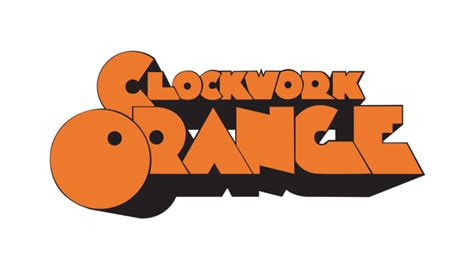
Clockwork Orange Font. A perfect blend of style and nostalgia, free clockwork orange fonts offer a unique creative experience for all. A clockwork orange font generator & download is available free at fontbolt.
You can use the font in your personal and. Try our text generator and create cool graphics for a clockwork orange font, then you can. Visit the movies section for. “timepiece” is the font used in the a clockwork orange logo. A clockwork orange font generator & download is available free at fontbolt. Web what font is used in the a clockwork orange logo? A perfect blend of style and nostalgia, free clockwork orange fonts offer a unique creative experience for all. Web a clockwork orange is also known for its striking visual style, use of classical music, and the iconic image of alex in his white outfit and bowler hat. This font is designed by fontmesa.
A perfect blend of style and nostalgia, free clockwork orange fonts offer a unique creative experience for all. A perfect blend of style and nostalgia, free clockwork orange fonts offer a unique creative experience for all. You can use the font in your personal and. Web a clockwork orange is also known for its striking visual style, use of classical music, and the iconic image of alex in his white outfit and bowler hat. Web what font is used in the a clockwork orange logo? “timepiece” is the font used in the a clockwork orange logo. Visit the movies section for. This font is designed by fontmesa. A clockwork orange font generator & download is available free at fontbolt. Try our text generator and create cool graphics for a clockwork orange font, then you can.